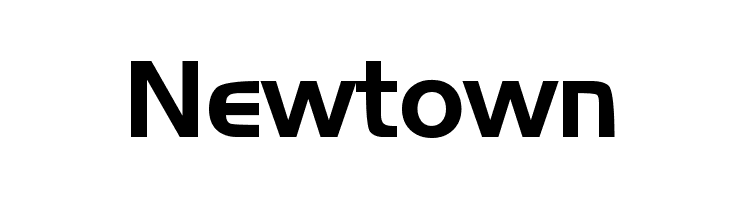
A distinctive serif font with sharp angles and a blend of traditional and modern styles.
A dotted font ideal for educational and playful design projects.
A classic, calligraphic serif font with decorative flourishes.
A modern, geometric sans-serif font with uniform character width and clean lines.
A sleek, modern italic font with consistent stroke width and elegant slant.
A modern, geometric sans-serif font with bold, slightly condensed characters.